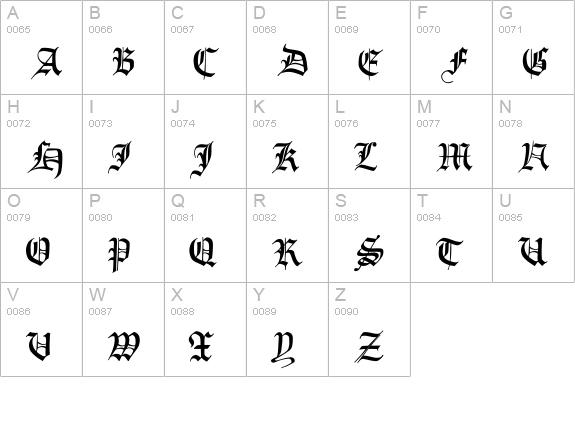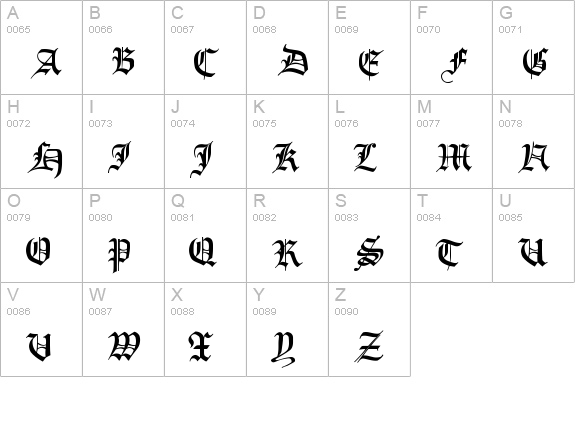
ImresFraktur Font Details
ImresFraktur font is a stunning display typeface that exudes an air of elegance and sophistication. Its intricate and ornate letterforms are reminiscent of traditional Fraktur calligraphy, adding a touch of vintage charm to any design project. This font is a true masterpiece, crafted with utmost attention to detail. Each letter is meticulously designed, featuring sharp angles, bold strokes, and intricate flourishes. ImresFraktur font captures the essence of classic German blackletter typefaces, making it the perfect choice for projects that require a touch of old-world charm. One of the most remarkable aspects of ImresFraktur font is that it is freely available to download at FontsMarket.com. This means that designers and typographers can easily access and utilize this exquisite font in their projects without any cost or restrictions. Whether you are working on a branding project, a book cover, a poster, or any other design endeavor, ImresFraktur font is a versatile and valuable asset. The beauty of ImresFraktur font lies not only in its stunning aesthetics but also in its versatility. It can be used for both display purposes and in smaller sizes for body text, adding a unique and captivating touch to any design. Its timeless appeal and distinctive character make it an excellent choice for projects that require a touch of elegance and sophistication. ImresFraktur font is truly a gem in the world of typography. Its intricate details, classic charm, and freely available nature make it a must-have for any designer or typographer. Download ImresFraktur font today from FontsMarket.com and unlock the limitless creative possibilities it offers.